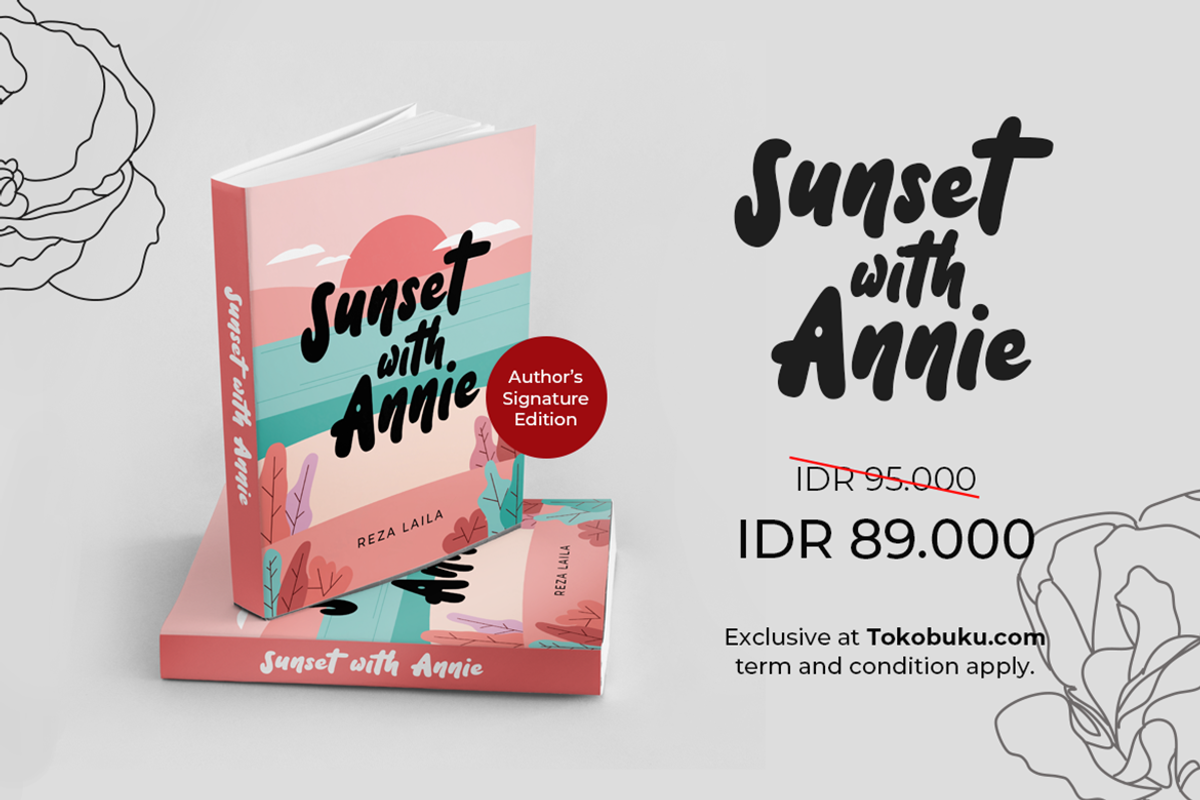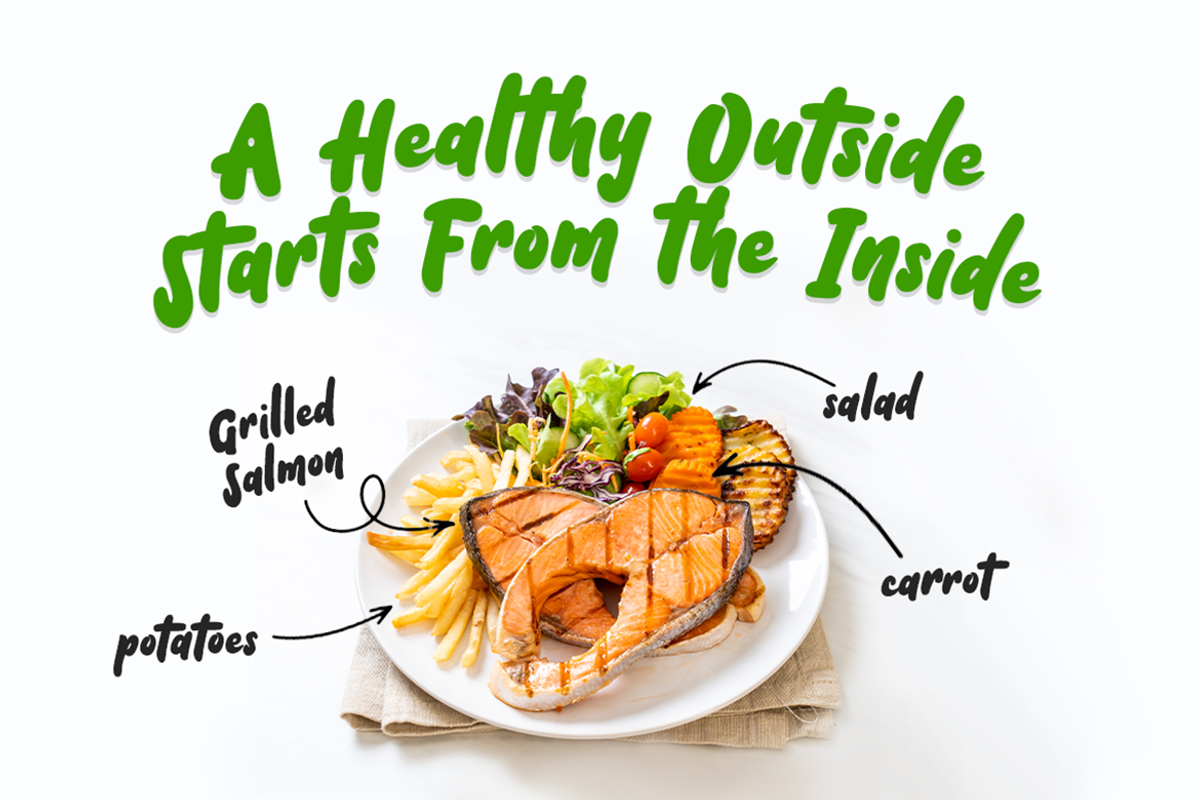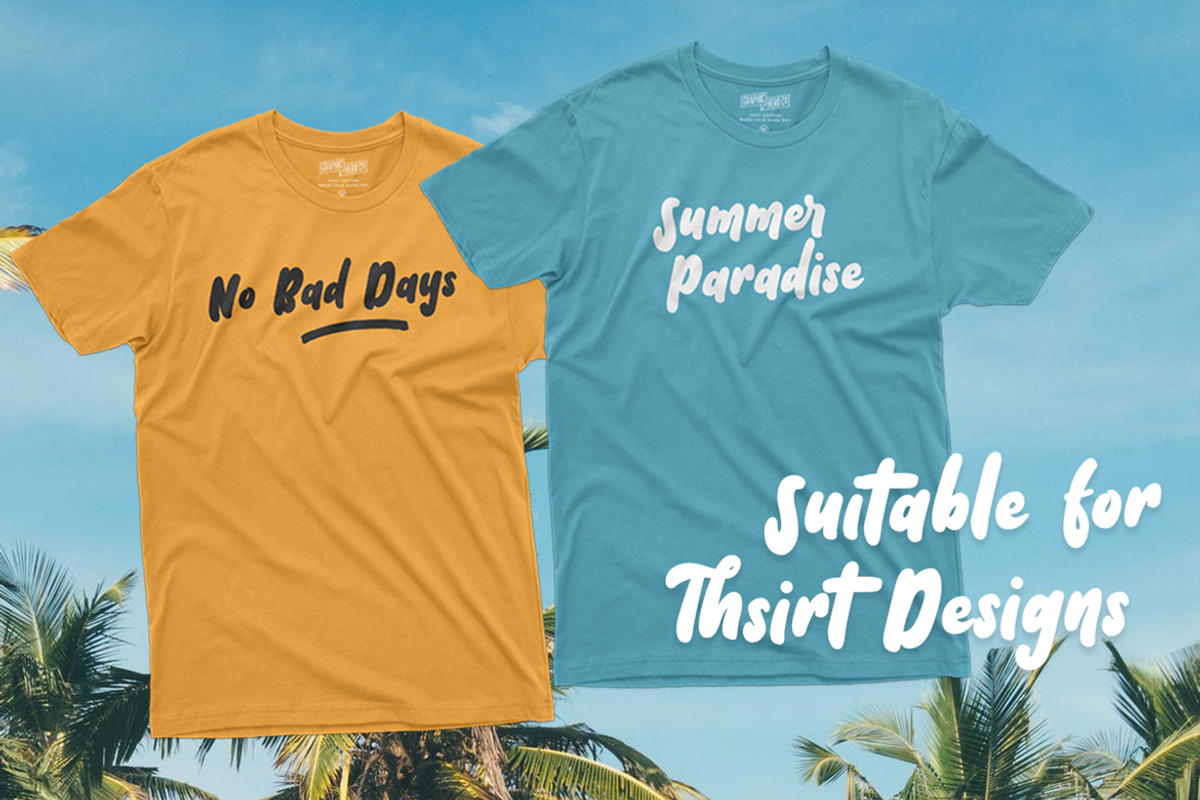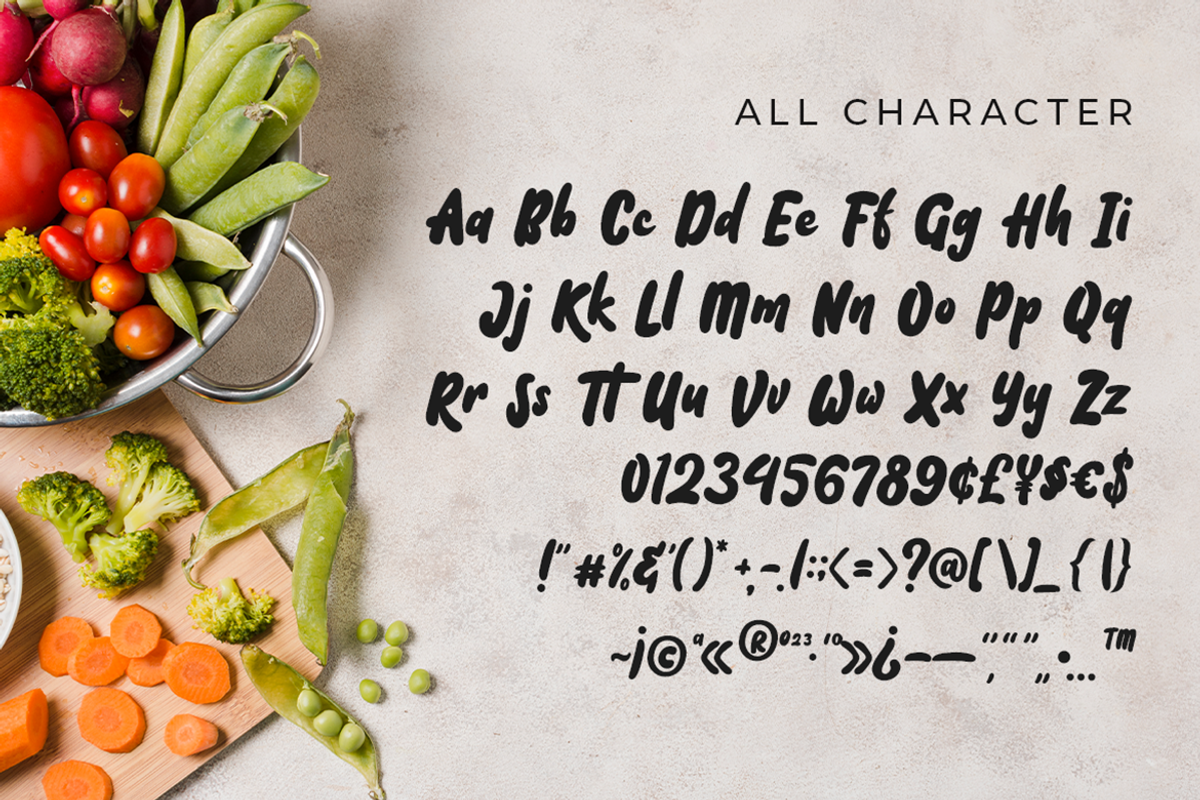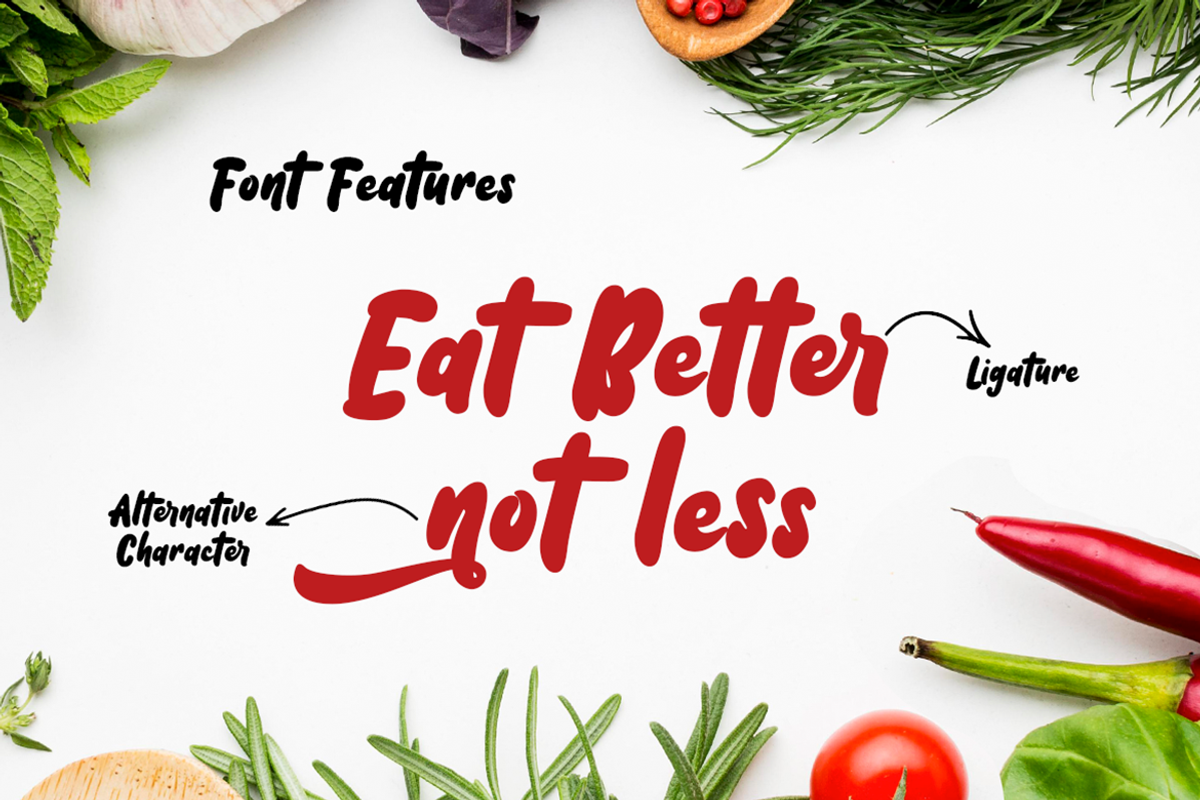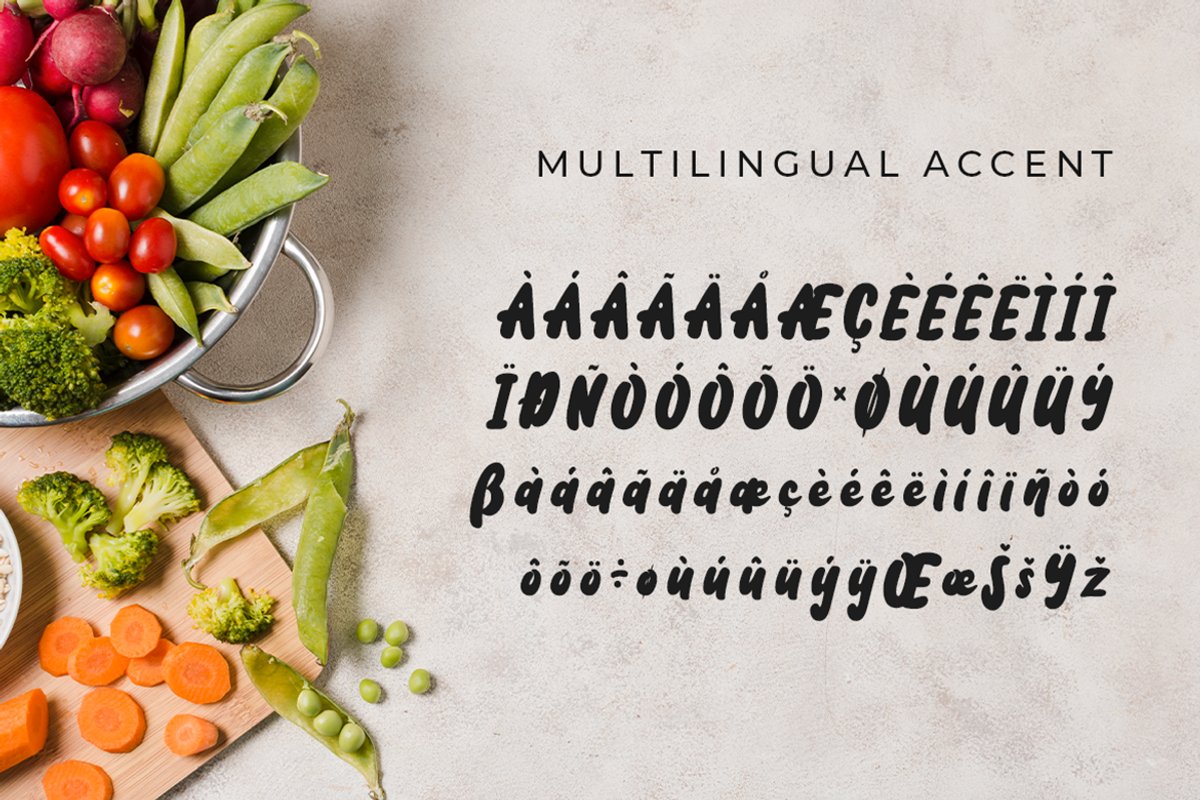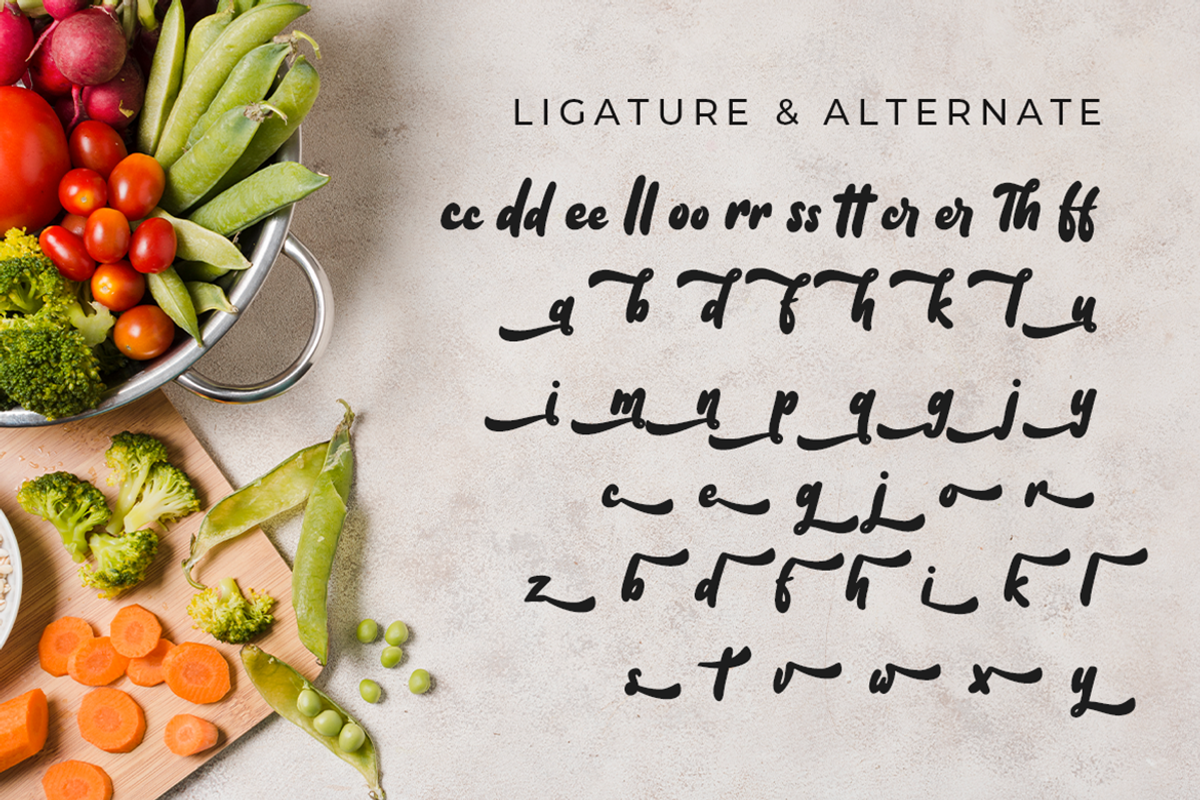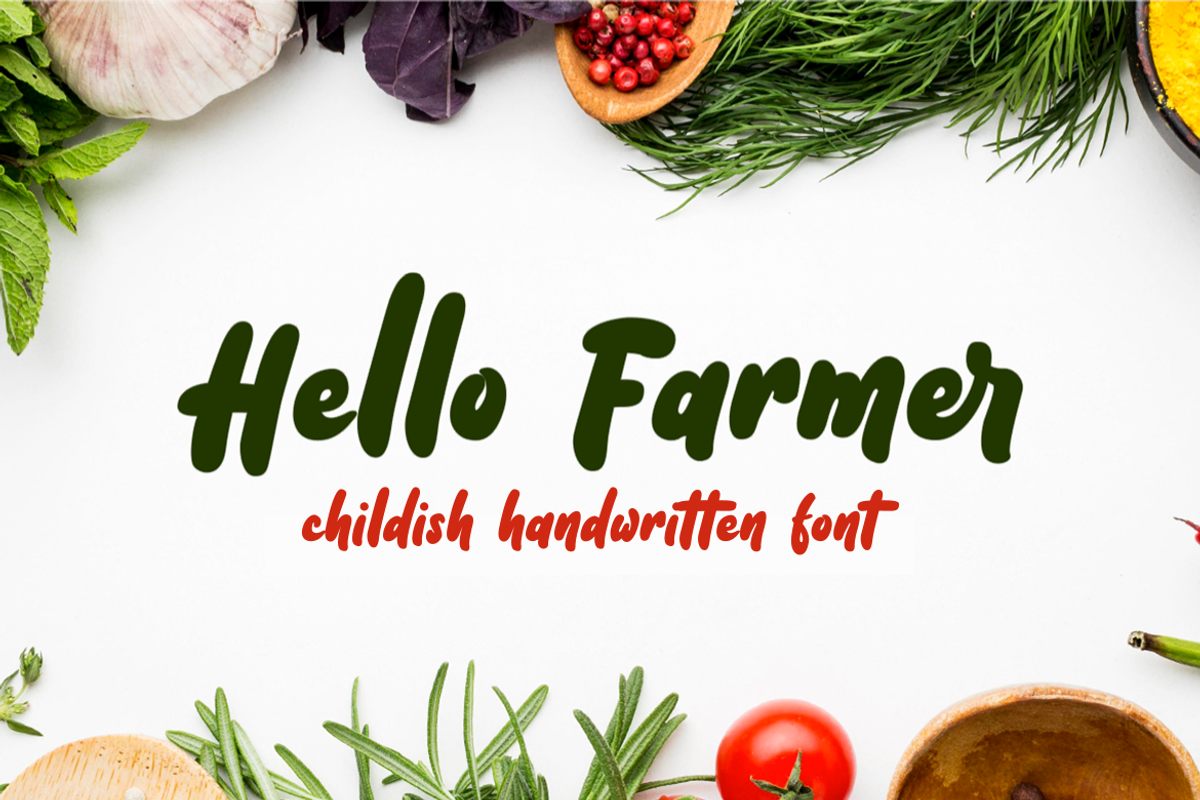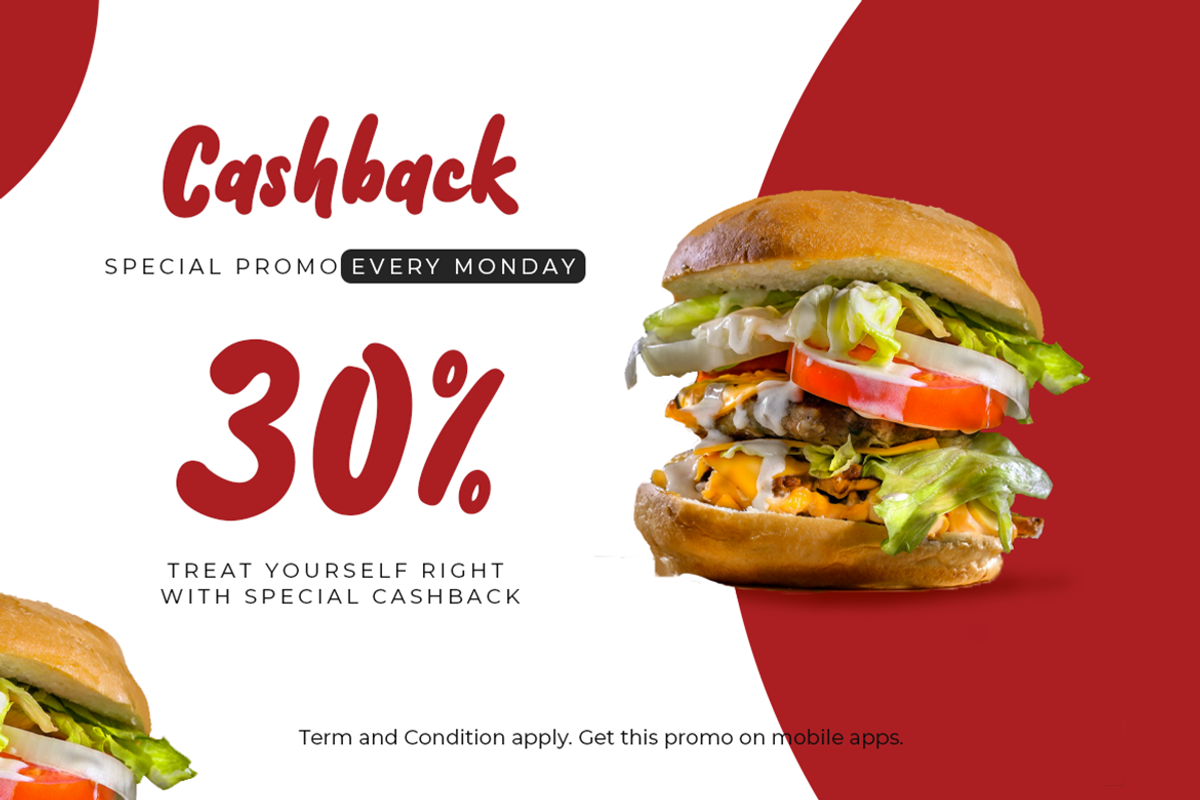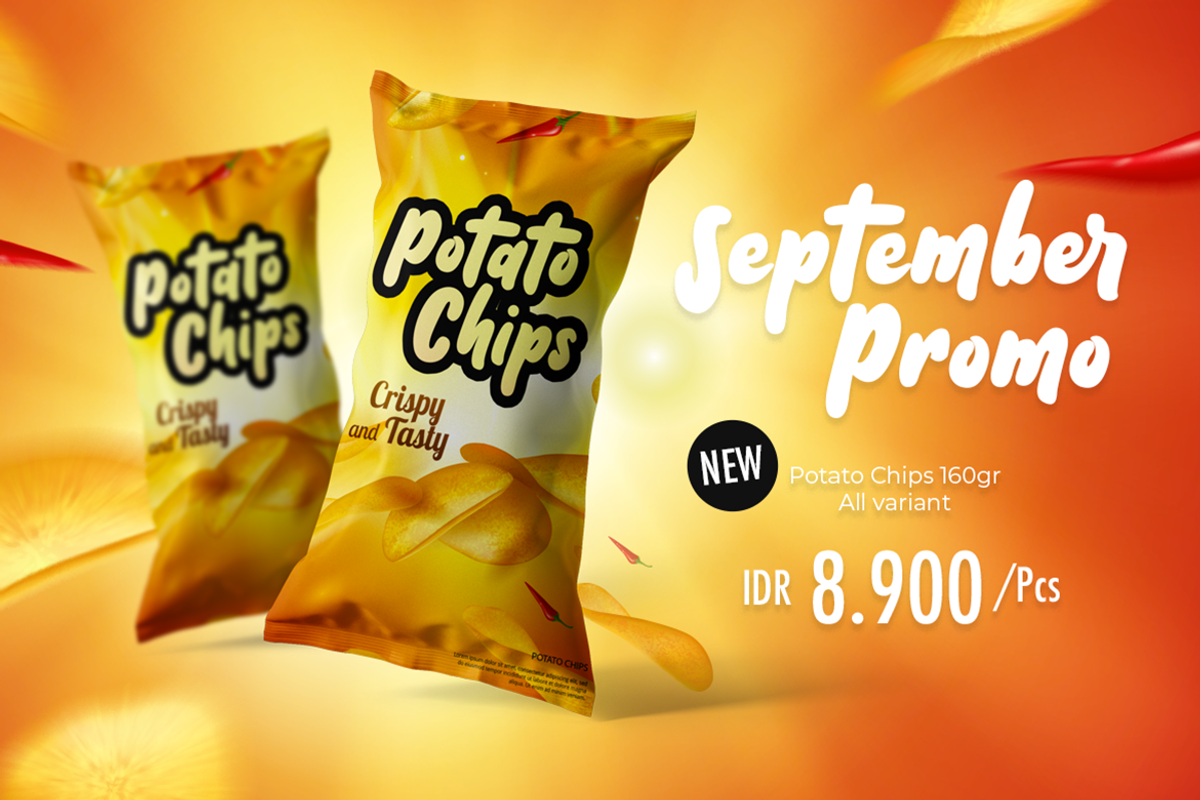
Hello Farmer – Childish Font
Hello Farmer is a cute and childish handwritten font. It is suitable for promotional designs, labels, packaging, branding, logotypes and much more. Hello Farmer comes with uppercase, lowercase, numerals, punctuations, ligatures & multilingual support characters.